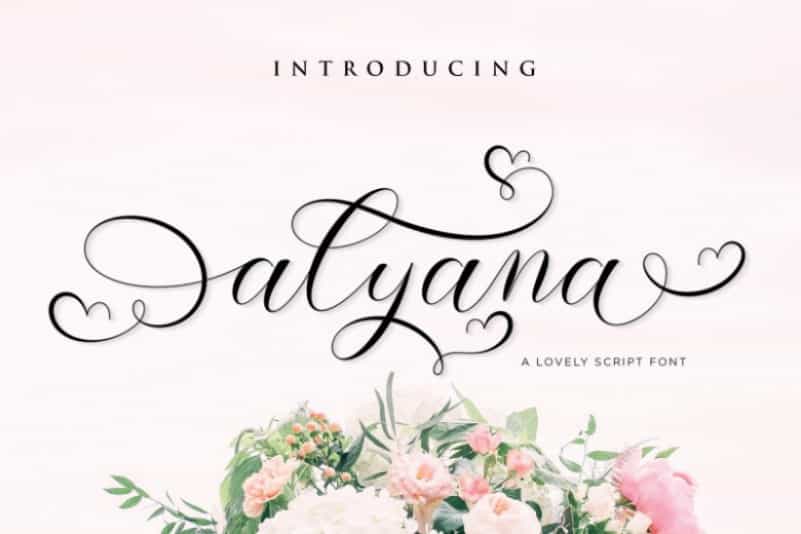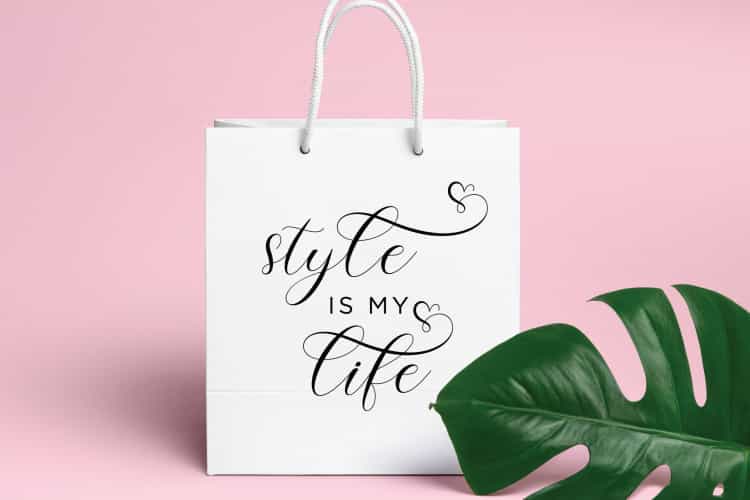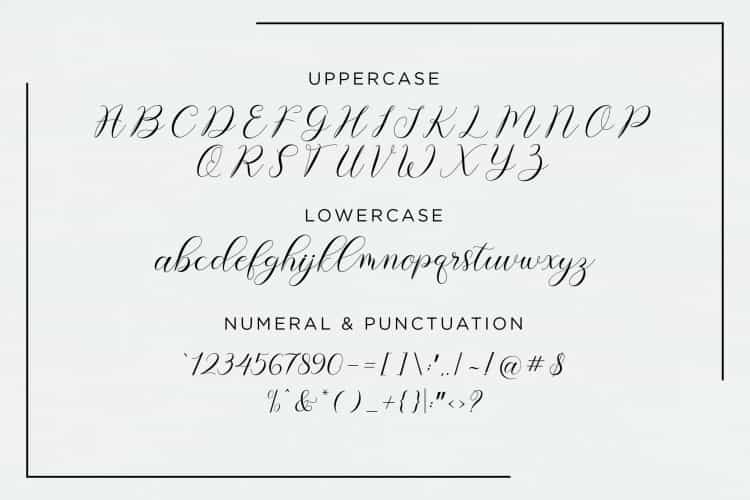
Introducing Alyana Font. It is a neat script font that is ideal for any project that requires a touch of style. It has a sleek and stylized appearance which can be applied to add an impressive and individualistic touch to your creations. It will be effective for logos, branding, invitations, stationary, wed designs, social media, advertisements, labels, watermarks and many others.